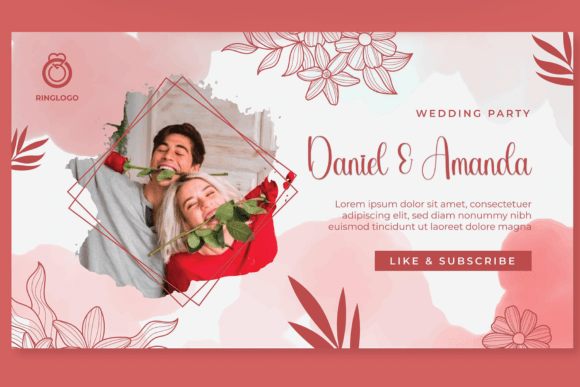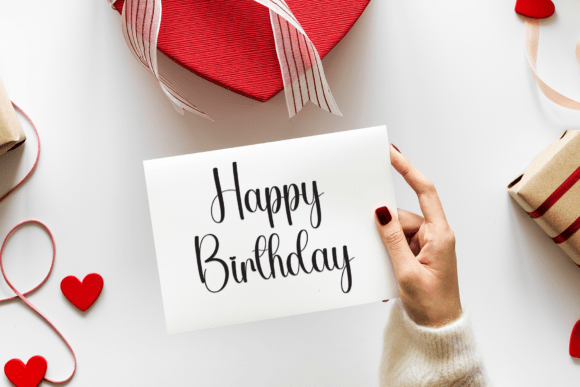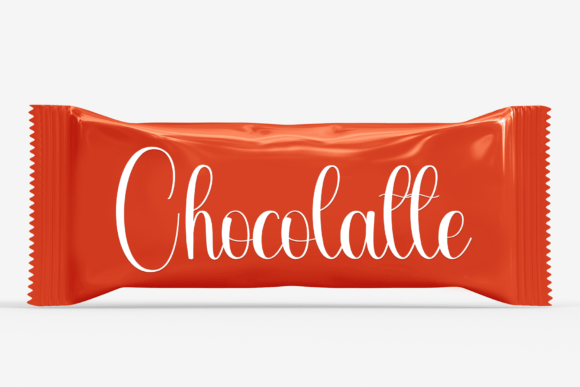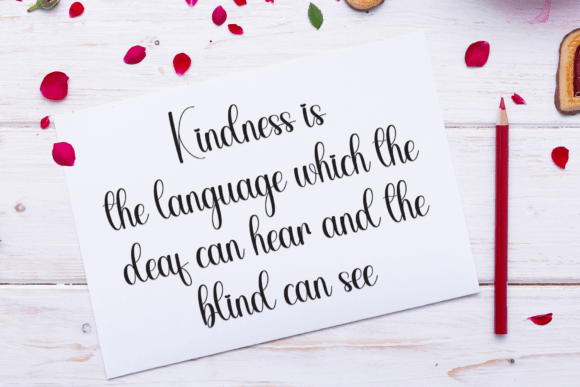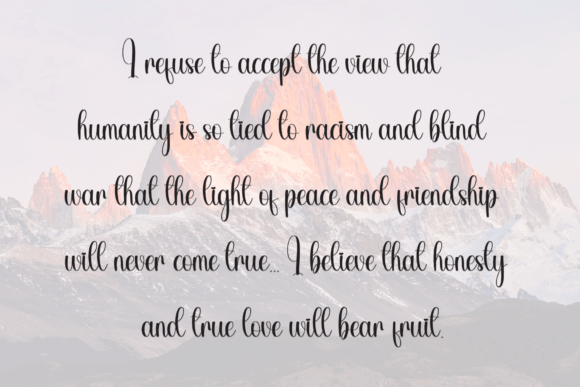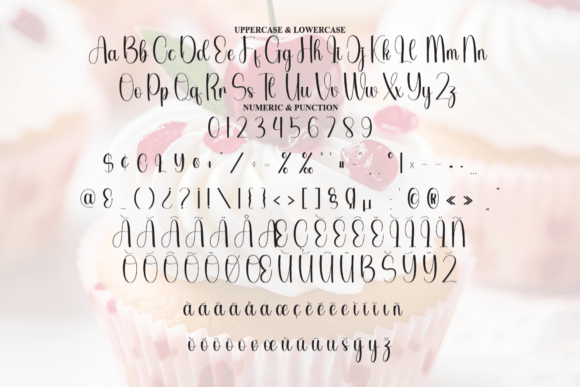
Meet the Cupcake Font, a delightful script font that embodies warmth and quirkiness. Its playful combination of charm and whimsy makes it an ideal choice for creating wedding invitations, personalized cards, and other special occasion designs. As a designer, you know the value of a font that adds a touch of magic to your work. The Cupcake Font is that secret ingredient that elevates your designs and leaves a lasting impression on your audience.
Cupcake Font Key Features
- Unique Characteristics: The Cupcake Font is a hand-drawn, cursive script font that features a playful and whimsical design. It includes a range of flourishes, swashes, and other decorative elements that add to its charm.
- Kerning and Ligatures: The Cupcake Font includes advanced kerning and ligature pairs that ensure smooth and even spacing between letters, making it ideal for use in body text and headlines.
- Customization Options: The font includes a range of customization options, including bold, italic, and condensed versions, allowing users to create a wide range of styles and effects.
Cupcake Font Review
I recently had the chance to work with the Cupcake Font, and I have mixed feelings about it. On the one hand, it’s a playful and whimsical font that’s perfect for baking-themed designs or kids’ party invitations. ✨ The rounded shapes and cursive lines give it a friendly and approachable feel that’s hard to resist.
However, there are some limitations to consider. ⚠️ For one, the font is not suitable for professional or formal designs, as it can come across as too childish or immature. Additionally, the font’s lack of subtlety can make it difficult to pair with other fonts or design elements. ✨ The font’s bold lines and bright colors can be overwhelming, especially when used in large quantities.
Here are some specific pros and cons:
- Playful and whimsical design
- Perfect for baking-themed or kids’ party designs
- Lack of subtlety can make it difficult to pair with other fonts or design elements
- Not suitable for professional or formal designs
- Bold lines and bright colors can be overwhelming
Overall, I think the Cupcake Font is a fun and creative option for certain types of designs, but it’s not a good fit for more formal or professional projects.
Common use cases for the Cupcake Font include baking-themed designs, children’s party invitations, and whimsical wedding stationery. To get the most out of the Cupcake Font, use it in combination with bright colors and playful graphics. Experiment with different font sizes and styles to create a unique, eye-catching design.
Q: Does Cupcake Font include any special characters or symbols?
Yes, Cupcake Font includes a range of special characters, including punctuation marks, numerals, and currency symbols. The font also includes a set of icons and glyphs specifically designed for baking-related applications, such as cake and cupcake symbols. You can access these special characters in your design software by using the font’s built-in character map or by copying and pasting the characters from a font preview.